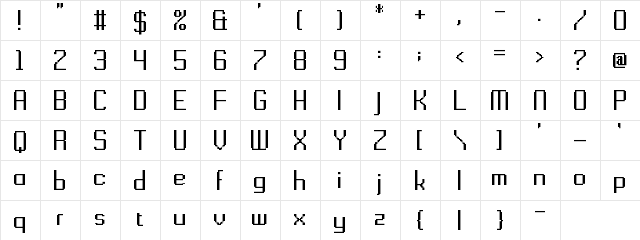
Gridking Regular
| Foundry | http://fontstruct.com/ |
| Designer | NAL |
Design Context for Gridking Typeface
Gridking is a composed and adaptable typeface that performs quietly and consistently across a wide range of design contexts.